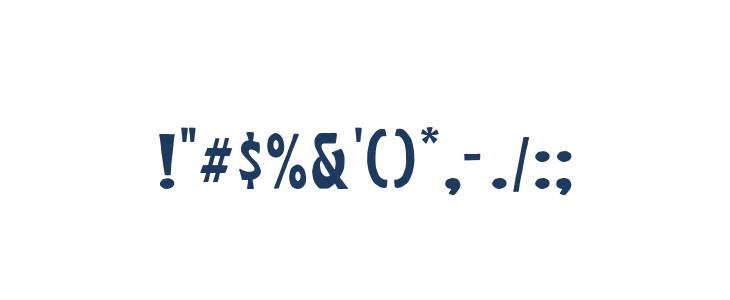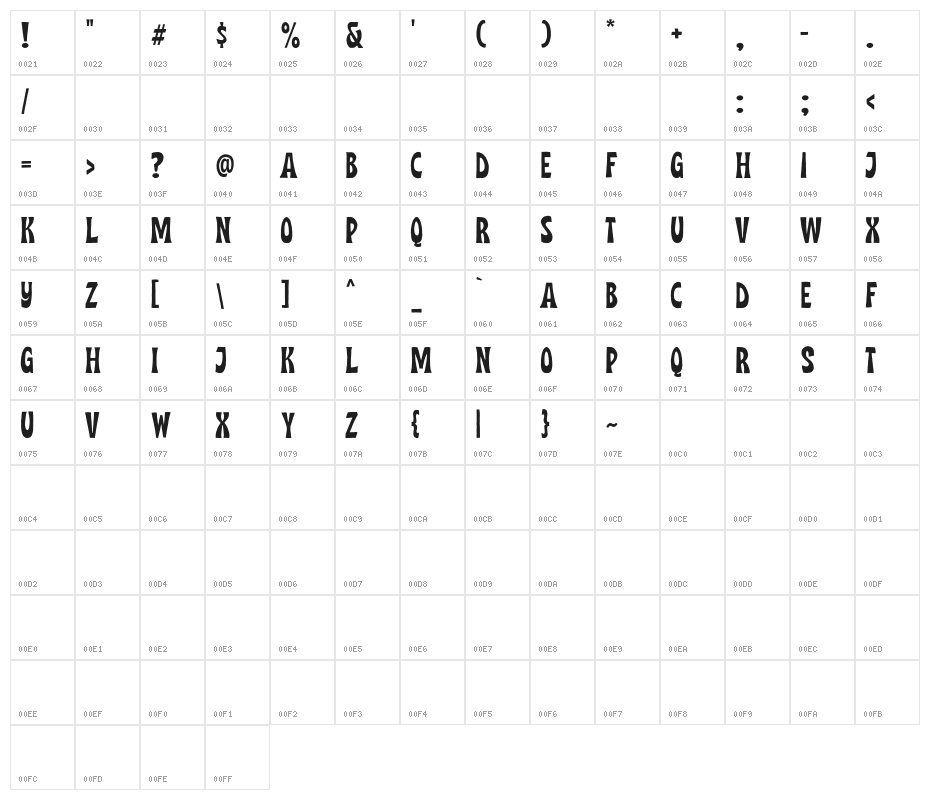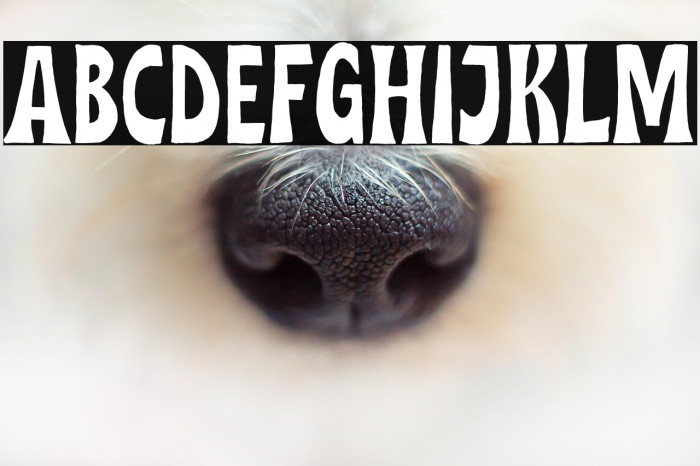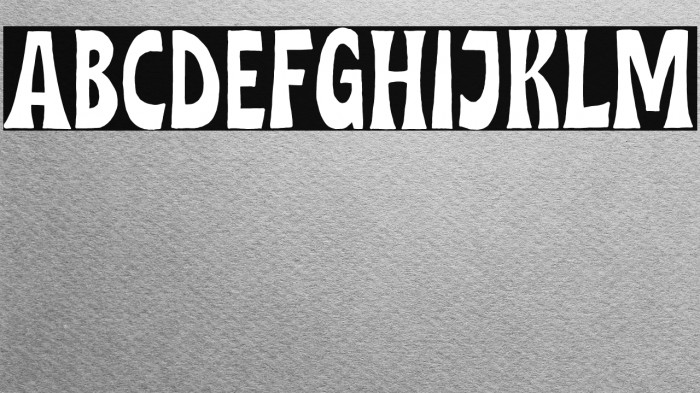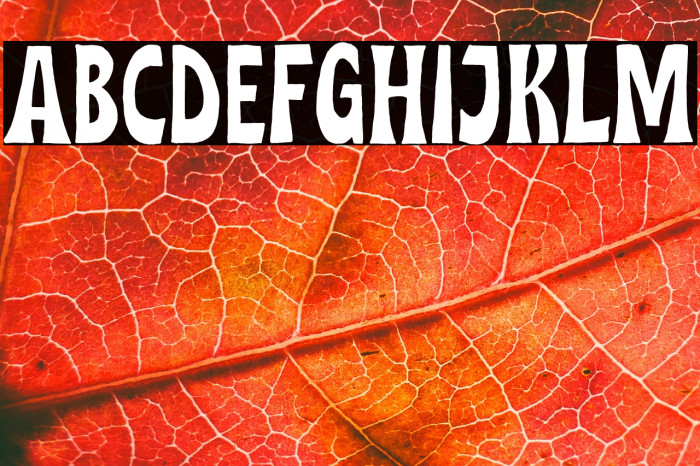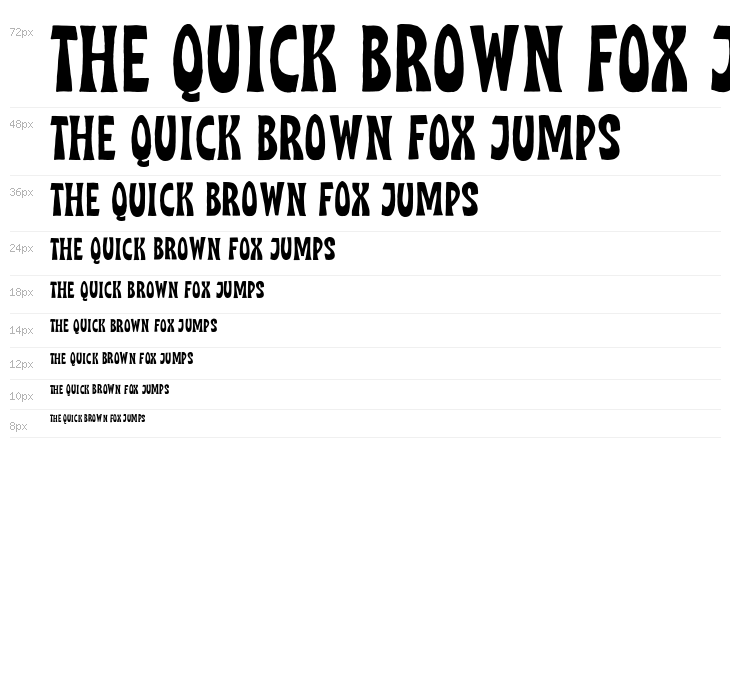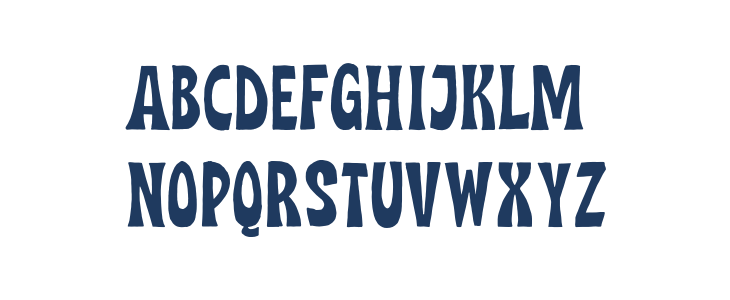
MidgetoDEMO-Regular Font
MidgetoDEMO-Regular Description
This font features a bold and playful design with a slightly irregular and hand-drawn appearance. The characters are thick and robust, giving a strong visual impact. The uppercase letters have a whimsical quality, with some letters exhibiting unique curves and angles that add to the font's charm. The lowercase letters maintain this playful style, ensuring consistency throughout. The numbers and special characters are equally bold, making them stand out. This font is ideal for projects that require a fun and engaging look, such as children's books, posters, or creative branding.
| Overall Style | Playful, Whimsical, Hand-drawn |
| Use Case | Headlines, Posters, Branding |
| Proposed Projects | Ideal for children's books, playful posters, creative branding, and eye-catching headlines. |